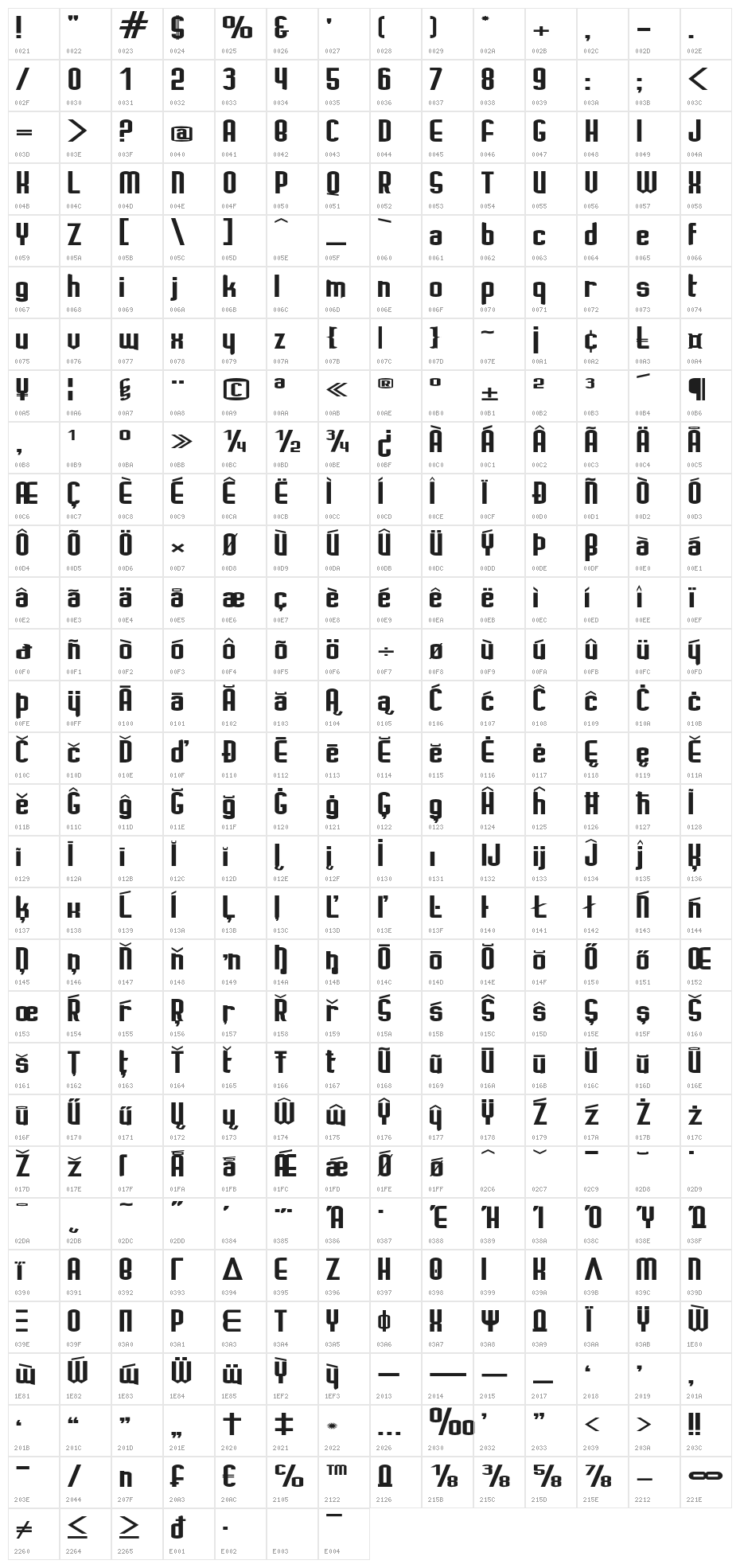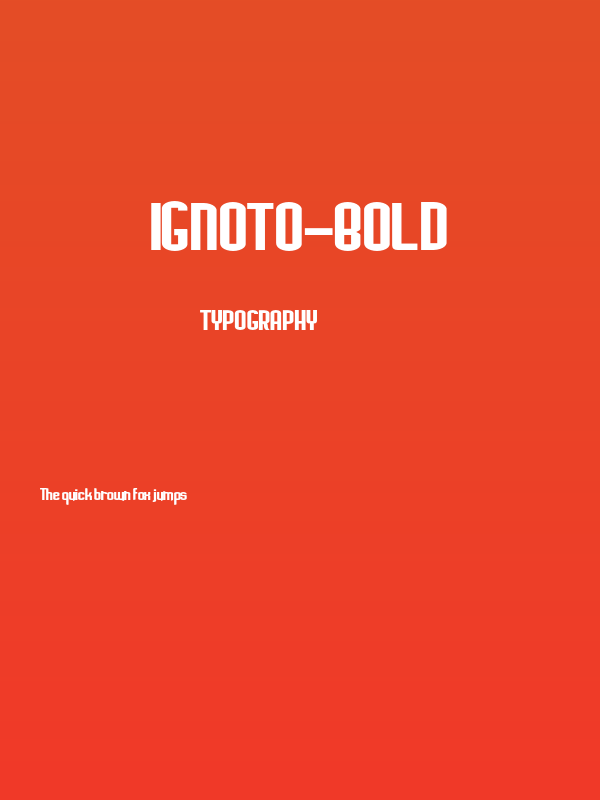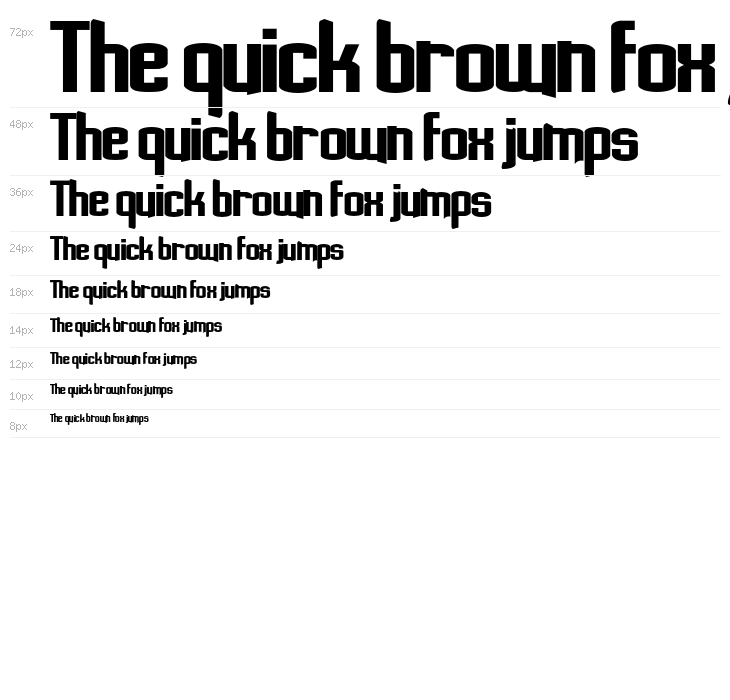
Ignoto-Bold Font
Ignoto-Bold Description
This font features a bold and impactful design with a modern, geometric style. The characters are constructed with strong, straight lines and sharp angles, giving it a robust and assertive appearance. The uppercase letters are uniform in height, while the lowercase letters maintain a consistent baseline, contributing to a cohesive look. The numerals are equally bold, ensuring readability and emphasis. Special characters are designed to match the overall aesthetic, with clean lines and a contemporary feel. This font is ideal for making a statement, with its bold presence and clear legibility.